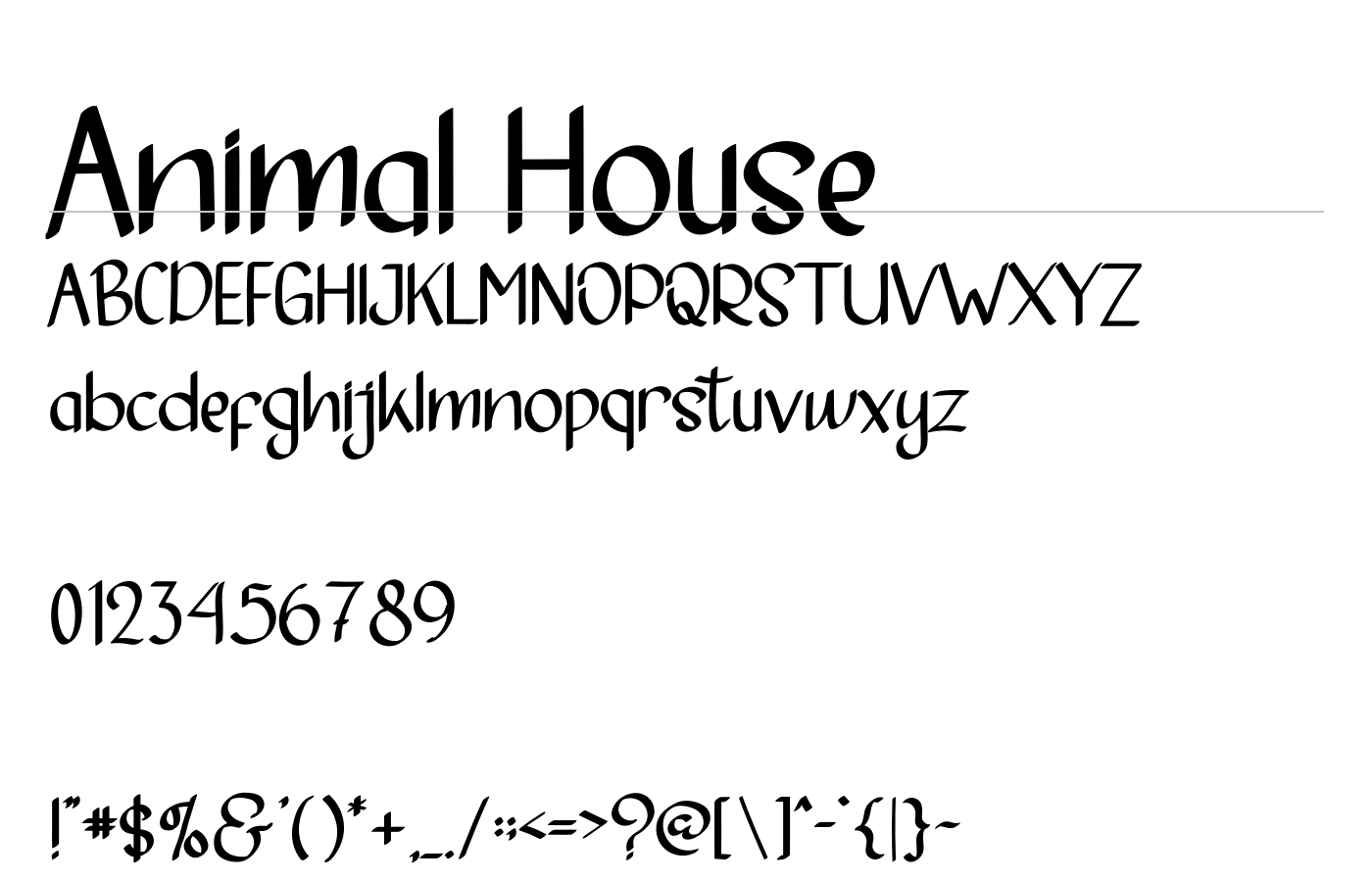
Animal House is a playful and distinctive serif font with a hand-drawn, slightly whimsical style that adds character and charm. Its irregular letterforms and moderate stroke contrast create a lively and informal vibe, making it ideal for creative projects, fun branding, or casual invitations where a unique and approachable look is desired. This font shines in headlines, logos, and packaging that want to convey personality and warmth without feeling overly formal.
Animal House Font